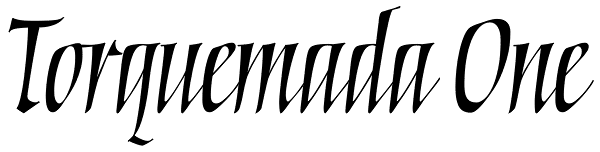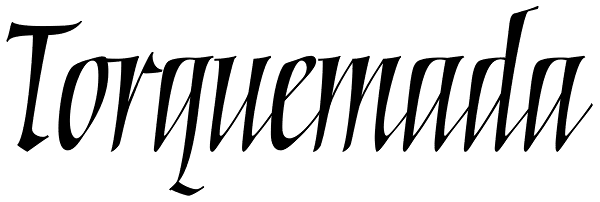
Torquemada
The Torquemada family marks the return of eminent American calligrapher Philip Bouwsma to the type scene after almost 7 years of hiatus, and he is certainly coming back with a lot of bells and whistles! Torquemada offers the same kind of excitement...